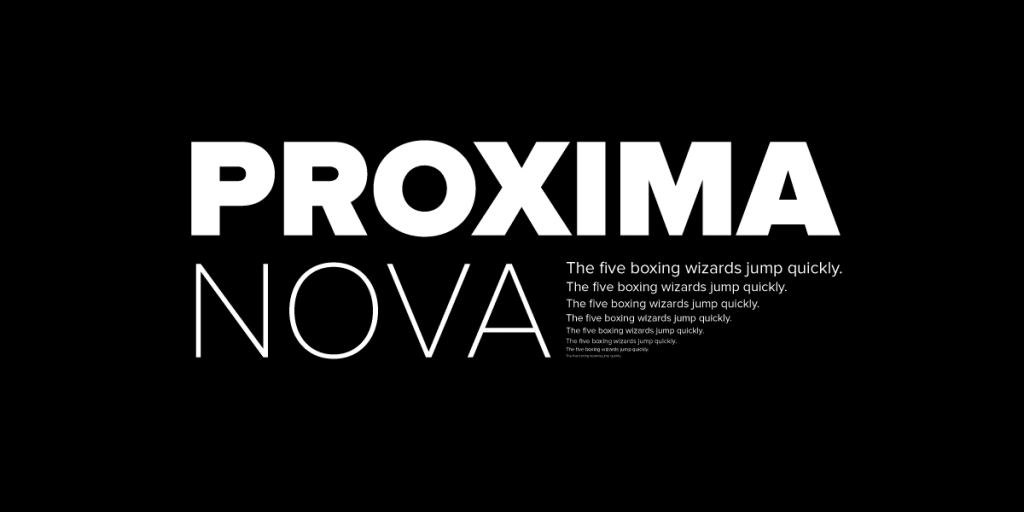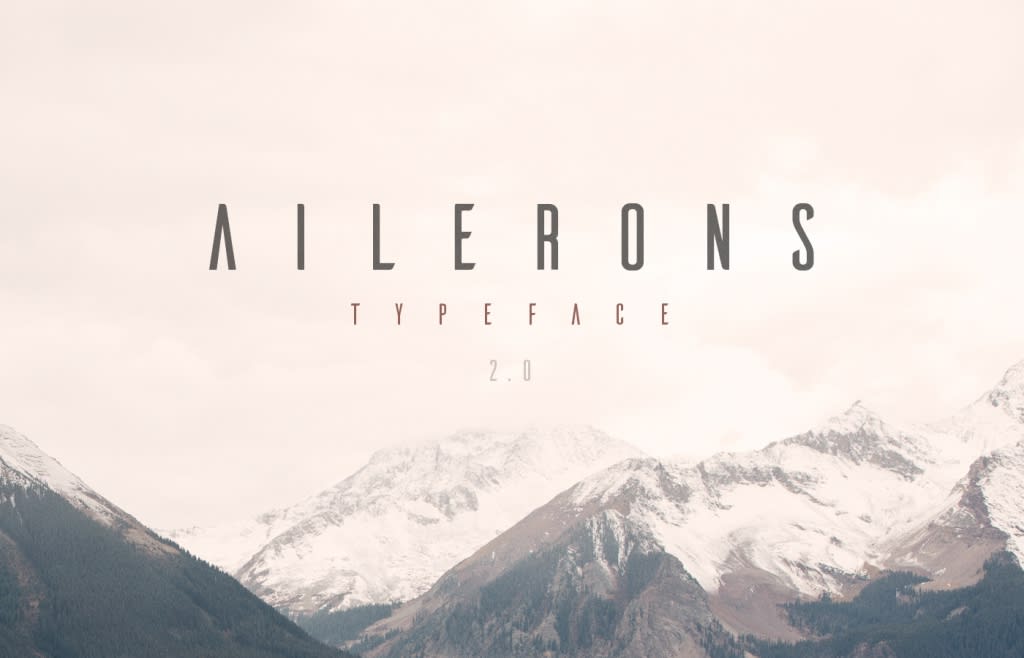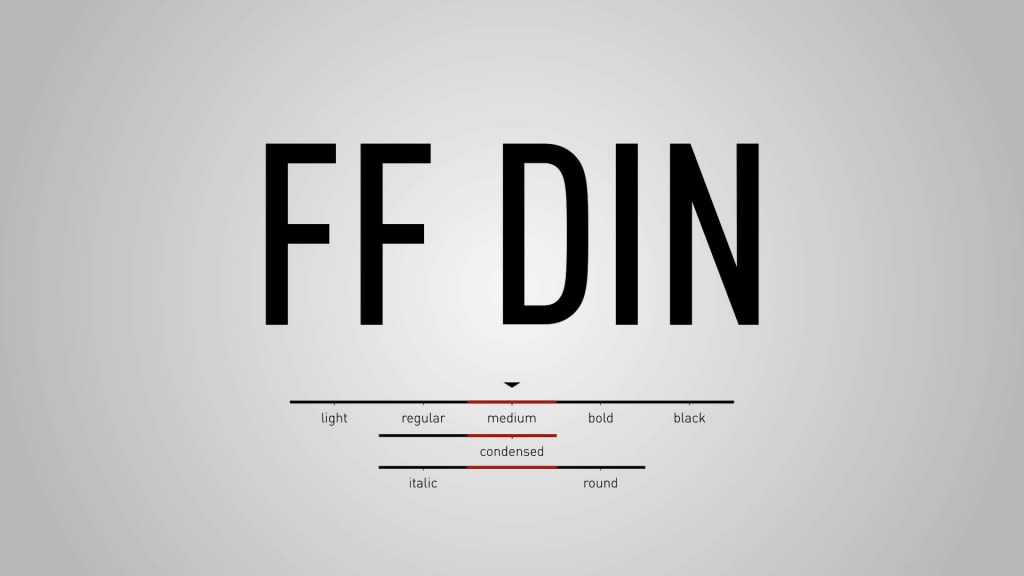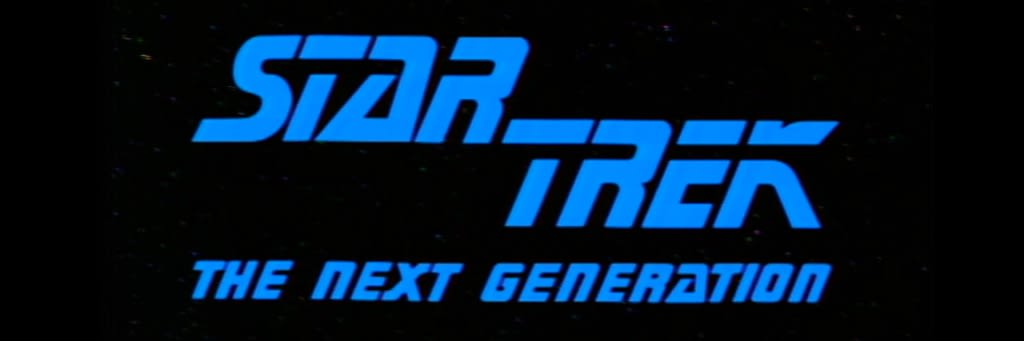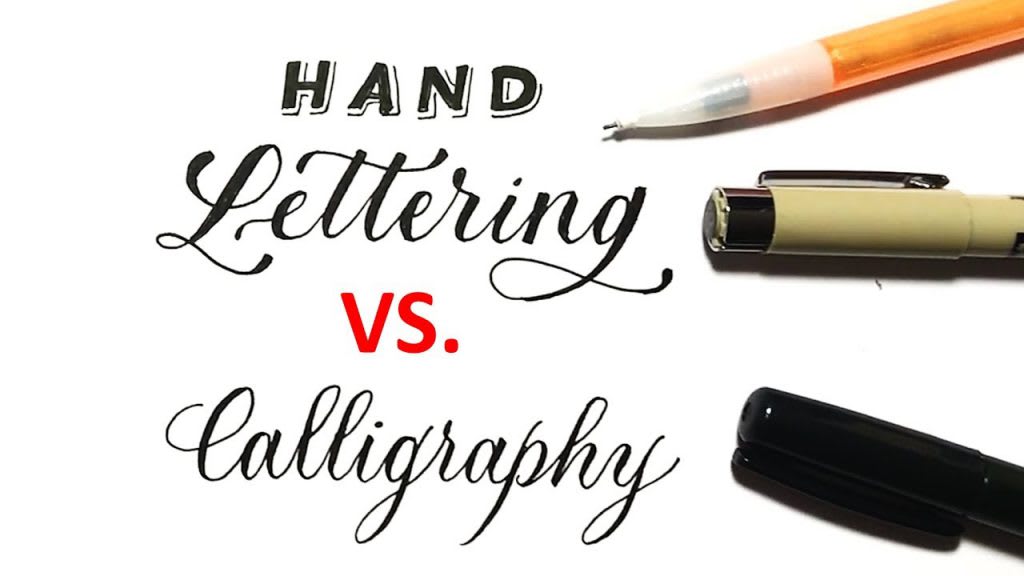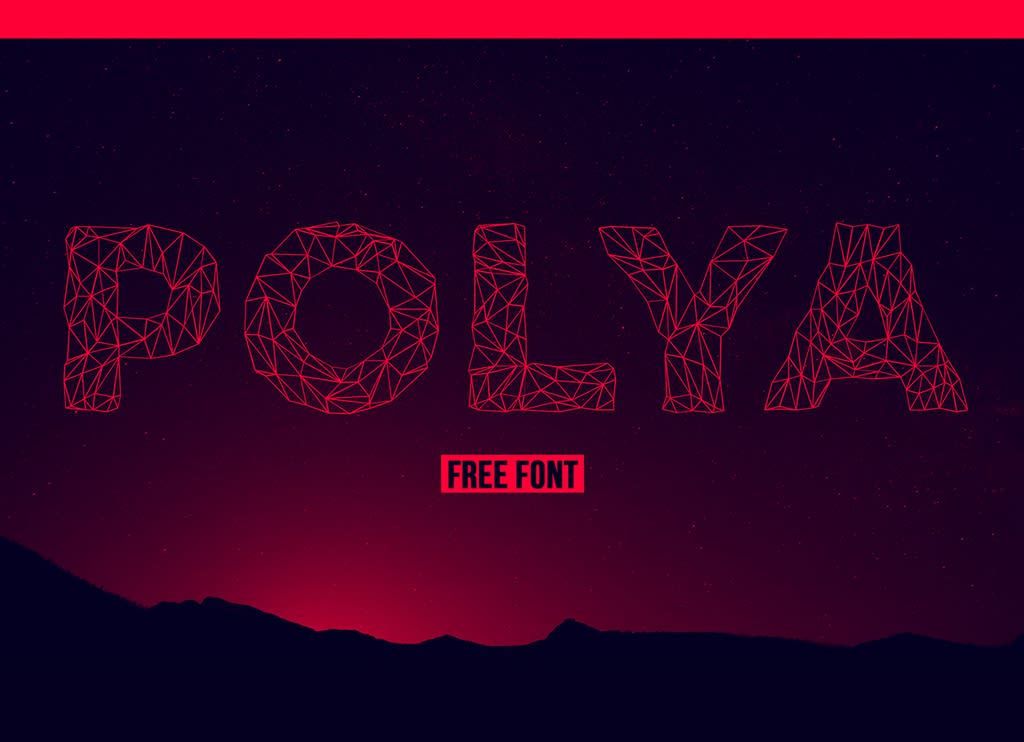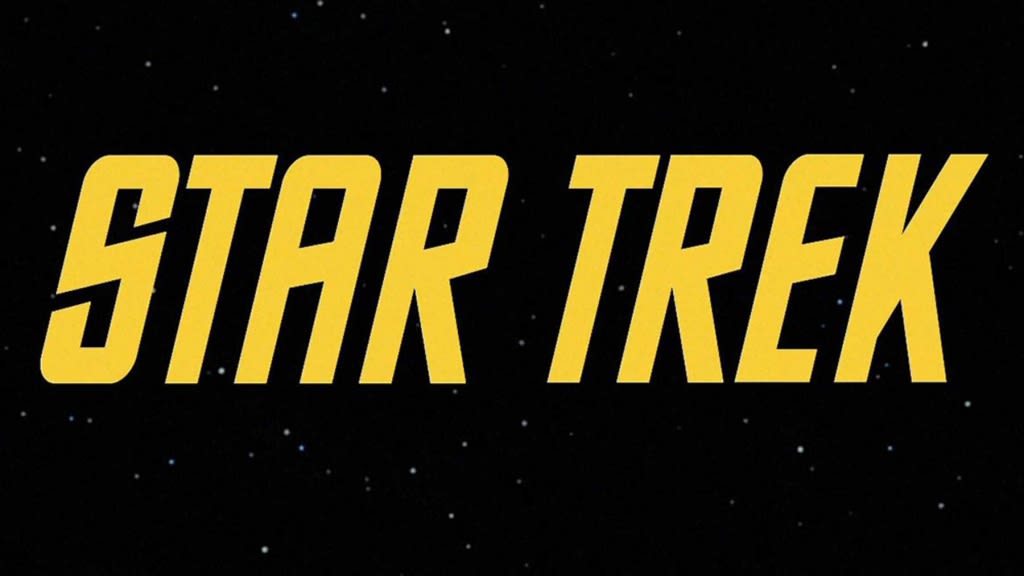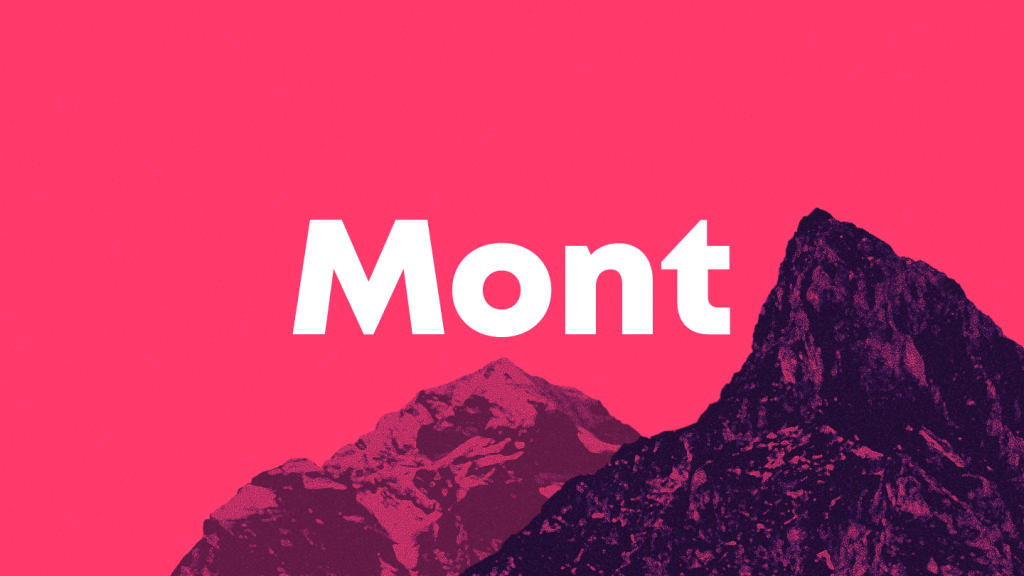
A modern typeface stands out visually when used in any graphic design project. They exist in almost every font category, as they are frequently the result of someone taking the time to rethink an existing font style and then putting their own [modern] twist on it. The newly created font may push the design envelope in a new and exciting way or it may simply cut away the trappings of a more traditional typeface and cater to minimalist tastes. Modern fonts can also take something expected and revolutionize how we see and interpret it. In short, modern fonts are any text style that complements a contemporary graphic design project.
There are numerous typeface categories with a host of modern fonts to explore, but we're only going to look closer at three in this article. However, with so many more options out there, and new fonts being developed daily, keep your eye out for the next big thing!
Futuristic Fonts
& 2016 CBS Studios Inc. The Star Trek logo as seen in the title sequences of the original series.
1979 Paramount Pictures The Star Trek movie logo as seen in the title sequences of the original motion picture.
& 2016 CBS Studios Inc. The Star Trek: The Next Generation logo as seen in the title sequences of the Star Trek: The Next Generation television series.
The word "futuristic" may immediately bring to mind a litany of sci-fi movies and logos such as the easily recognizable and strong font custom-designed for the different Star Trek logos over the years. The setting of the show (the "future") ensures that these edgy fonts are deemed "futuristic." While the fonts shown above were definitely considered modern at the time, there are some new typefaces that are redefining what "futuristic" really means.
Ailerons
Image via BeFonts Ailerons by Ailerons Typeface
Inspired by 1940s aircraft models, Ailerons is an innovative all-caps typeface that uses character spacing and omitted lines (such as the meanline of the capital letter "A" which brings to mind another classic sci-fi movie) to exude mystery and power. If you're looking to revamp your futuristic brand, Ailerons has the ability to stand out from many of the other modern logo fonts.
Lombok
Image via Behance Lombok by Alexandre Pietra
Lombok is a modern font with an aesthetic that is simultaneously primitive and futuristic. This dichotomy creates an otherworldly feel that is best utilized for titles and logos, where it can really make an impact to be remembered by future generations.
Polya
Image via 1001Fonts Polya Regular by Adrien Coquet
Inspired by three-dimensional design, Polya is a modern font that falls clearly into the futuristic category. Its natural geometric elements create interest and make it yet another intriguing member of the modern logo fonts family.
Modern Calligraphy Fonts
Image via Loveleigh Loops
The recent fascination with hand-lettering (also known as modern calligraphy) has inspired a variety of contemporary fonts. Unlike their more traditional, scripted predecessors, these modern handwritten fonts are free and fun, without rigidity, mimicking cursive handwriting. These modern fonts are personal and natural while also being elegant. These qualities make them a favorite for wedding invitations, greeting cards, personal notes, and stationery.
Compared to other modern font styles, these fonts are innately free-flowing and rule-free. In fact, there are many modern calligraphy fonts that are actual two fonts combined to make a perfectly-matched font duo. Many of these font duos consist of a combination of uppercase and lowercase fonts to give each one a clear purpose. Since calligraphy in general can sometimes be more decorative than readable, having a second paired font can expand on the overall impact of the choice to use a unique and innovative font!
Northwell
Image via MyFonts Northwell by Set Sail Studios
Known as "a rustic, dapper handwritten font with a personal charm," Northwell has an old-school feel that is somehow decidedly modern. Pair it with a clean and simple all-caps font for a complete and readable look.
Palmer Lake
Image via MyFonts Palmer Lake by Jen Wagner Co.
Palmer Lake is a fun and friendly font duo to add a personal and modern touch to any project. With uppercase letters in all-caps print and lowercase letters in a smooth and casual handwritten script, this font package is a one-two punch that will make waves when used in line with a coordinating branding strategy.
Seventeen Winter
Image via MyFonts Seventeen Winter by Sinjani21
The combination of Seventeen Winter's Signature and Regular fonts makes a sharp and icy impact that is truly unforgettable. This recently-released modern calligraphy font is both edgy and fun and has already made a decidedly icy splash.
Minimalist Sans Serif Fonts
Image via Neuron Themes I Am Sans
One of the most prolific of the modern font families is the long list of streamlined sans serif fonts. Stripped of those clunky serifs (the small line at the end of a broader stroke - think Times New Roman or Garamond), it's the modern sans serif that breaks through the barrier of tradition and creates a modern and minimalist feel that is a good fit for almost any use case